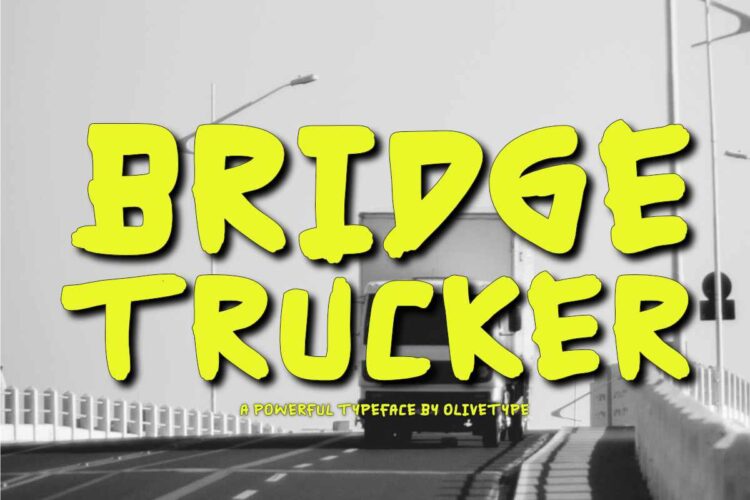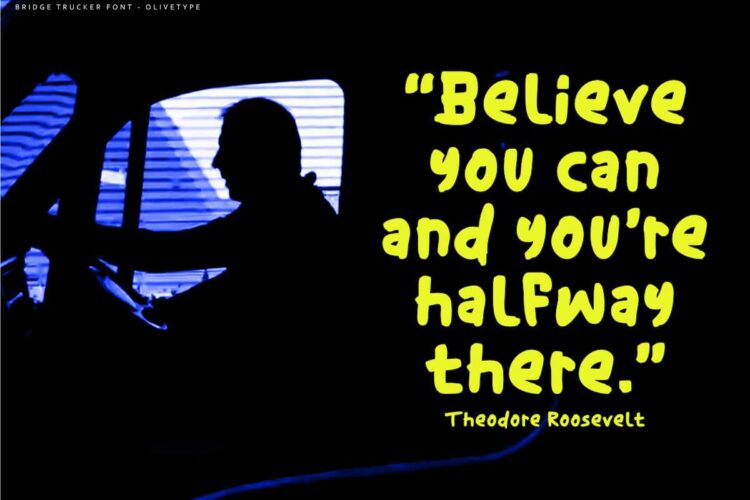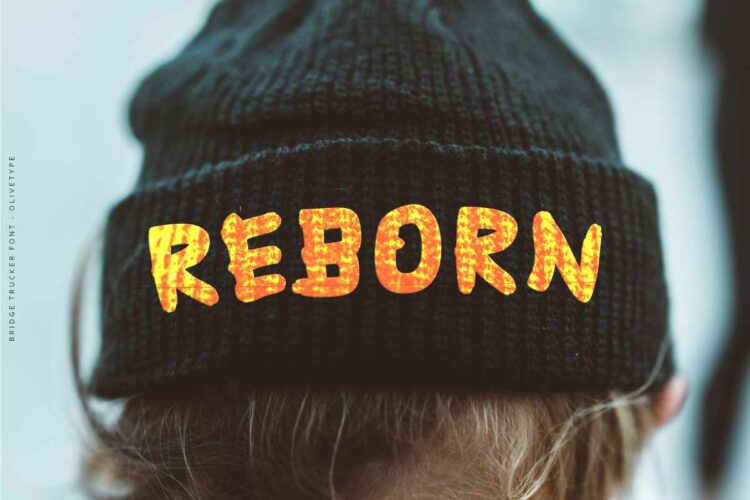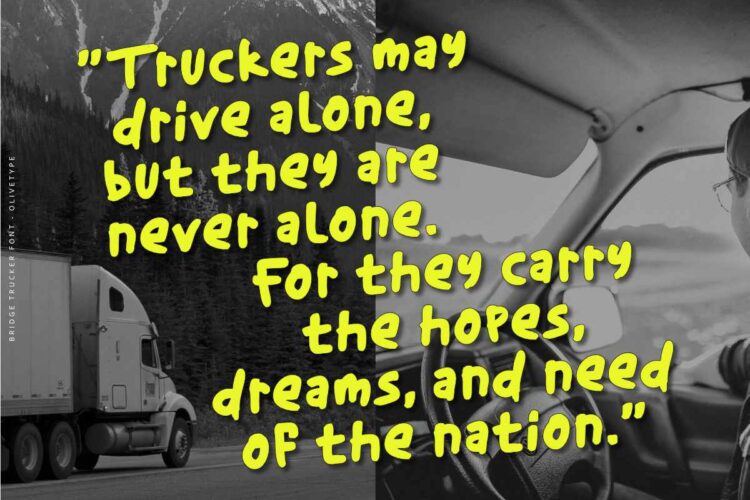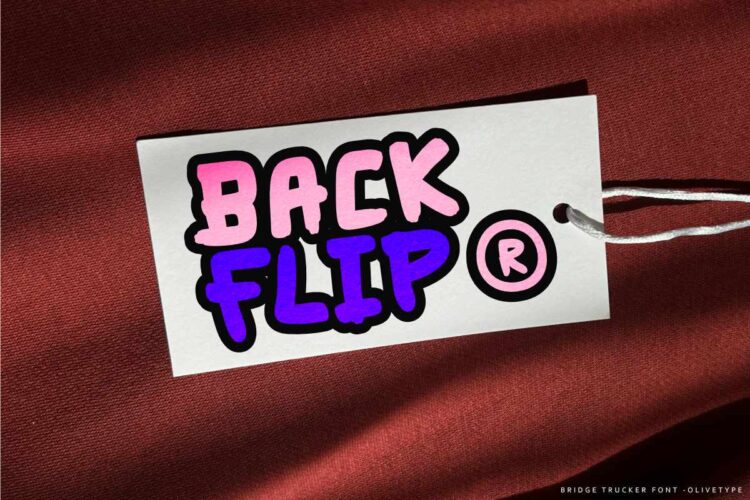
Introducing Bridge Trucker, a powerful display font that effortlessly transforms your designs into bold statements. Whether you’re creating eye-catching apparel, striking posters, or memorable logotypes, this font brings an unmistakable presence that captures attention without overwhelming. Its robust character set is crafted to ensure clarity and legibility from a distance, making it perfect for quotes and branding that need to resonate with your audience.